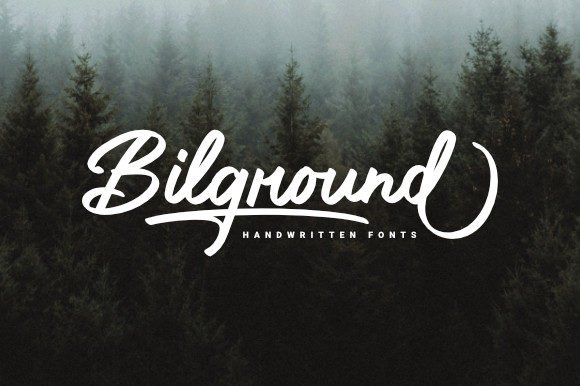
Discovering the Perfect Brush Script Font
As I sat at my desk, staring at a blank canvas, I knew exactly what I needed – a font that would transport my design to a world of sophistication and elegance. And then, I found it – Bilground Font. This beautifully crafted brush script font is more than just a pretty face; it’s a tool that can elevate any project to new heights.
Bilground Font is a masterclass in balance and flow, with its stylish alternates and ligatures making it the perfect match for designers who demand the best. With its PUA encoding, accessing all the glyphs and swashes is a breeze, giving you the creative freedom to experiment and push the boundaries of your design.
Bilground Font Key Features
- Unique Characteristics: Bilground Font features a unique blend of modern and vintage elements, with intricate details and subtle textures that add depth and visual interest.
- Scalability: Bilground Font is highly scalable, making it suitable for use in a wide range of applications, from small text to large headlines.
Bilground Font Review
As a designer, I was excited to try out the Bilground Font. Here’s my honest review.
✨ **What works well:**
- Unique and modern design, perfect for contemporary branding and digital projects.
- High level of flexibility, making it suitable for various font sizes and resolutions.
- Good legibility, ensuring the text remains clear even at smaller font sizes.
⚠️ **Limitations:**
- Limited language support, which may be a concern for projects that require extensive internationalization.
- Not ideal for traditional or formal typography, as it’s more suited for modern and edgy designs.
Overall, I think the Bilground Font is a solid choice for designers who want to add a touch of modernity to their projects. While it may not be perfect for every use case, it’s definitely worth considering for the right projects. With its unique design and high flexibility, it’s a great option for designers who want to push the boundaries of traditional typography.
For best results, use Bilground Font in conjunction with bold or italic text to add emphasis.
- Creating eye-catching headlines and titles.
- Designing brand identity materials, such as logos and business cards.
- Adding a unique touch to social media graphics and advertising materials.